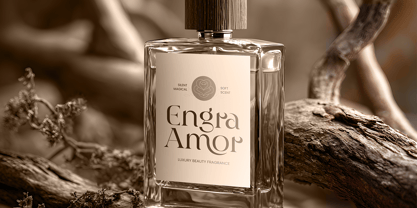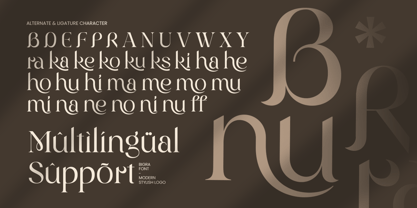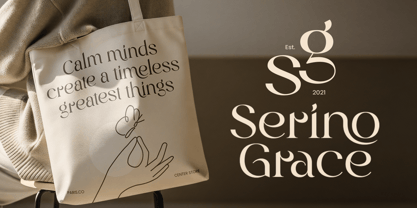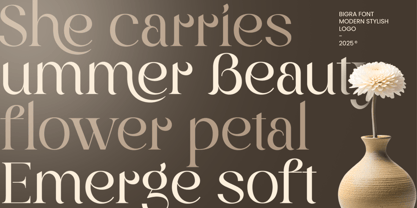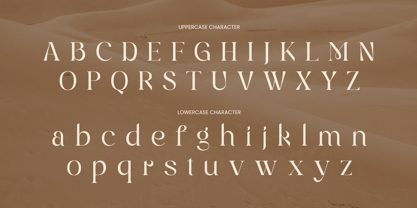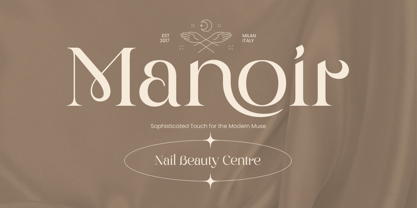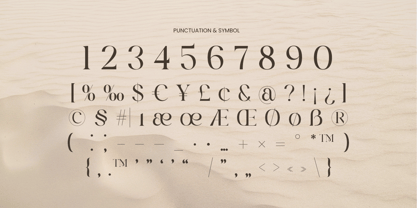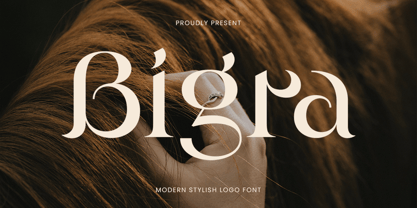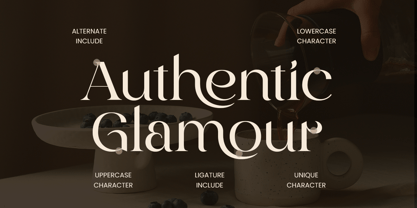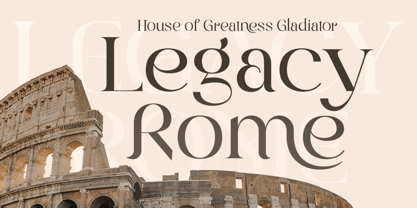
Bigra is a modern stylish logo font designed to deliver a clean, confident, and contemporary identity. With refined letterforms and a sleek visual rhythm, this typeface brings a polished look that feels professional, trendy, and ready for modern branding.
Perfect for logos, brand identity, product packaging, social media visuals, website headers, and editorial titles, Bigra helps your typography stand out without looking noisy. Its stylish structure makes it a strong choice for creative studios, startups, fashion brands, lifestyle products, and modern campaigns that need a sharp, premium tone.
Whether you’re building a minimalist logotype or an eye-catching headline system, Bigra adds modern character and reliable readability across both digital and print layouts.
Bigra – Modern Stylish Logo Font Features
Modern stylish letterforms built for logotypes
Clean, sleek shapes for contemporary branding
Ideal for logos, packaging, headlines, and social media design
Balanced proportions for clear readability at multiple sizes
Includes uppercase, lowercase, numerals, and punctuation
Great for both digital use and print production
OpenType features for flexible, polished typography